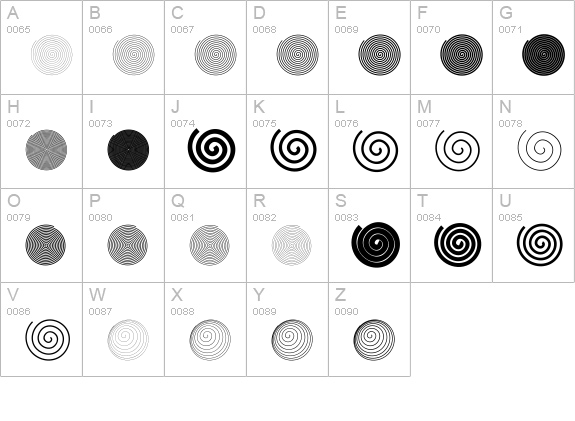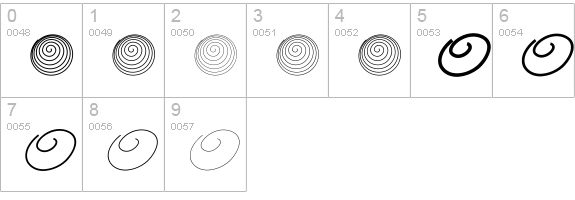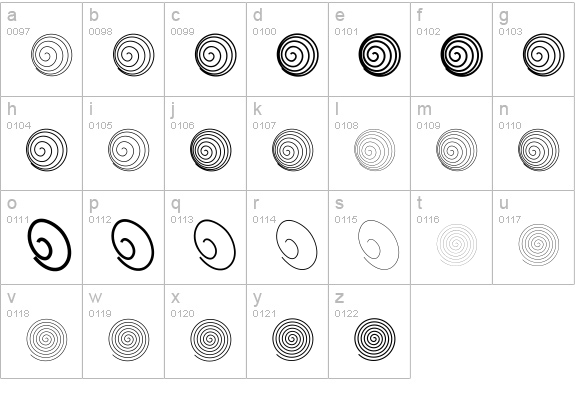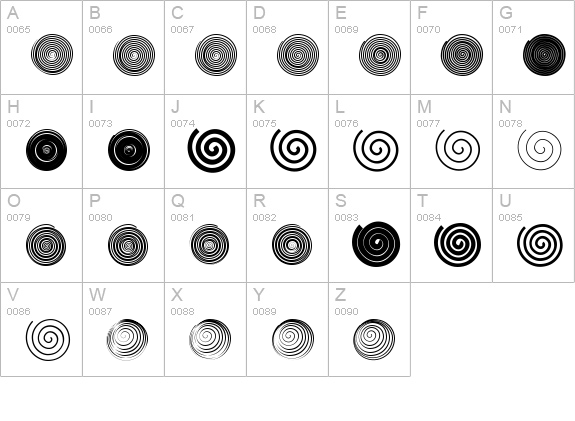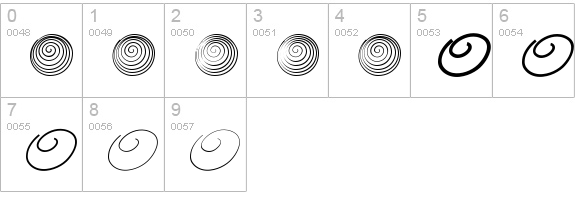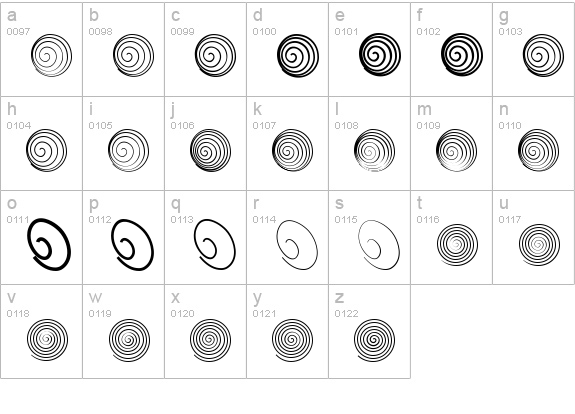
Spiralicus Font Details
Spiralicus is a captivating and versatile font that will add a touch of artistic flair to any project. With its unique spiral-like design, this font effortlessly combines elegance and creativity, making it perfect for everything from logos and branding to invitations and social media graphics. One of the best things about Spiralicus is that it is completely free to download at FontsMarket.com. This means that you can unleash your creativity without any financial constraints. Whether you are a professional designer or a creative enthusiast, this font provides you with endless possibilities to express your ideas and bring them to life. The intricate details of Spiralicus make it a truly eye-catching font. Each letter is delicately crafted with precision, ensuring that every word you create becomes a visual masterpiece. The graceful curves and striking symbols make it a font that stands out from the crowd, leaving a lasting impression on anyone who sees it. Another great feature of Spiralicus is its versatility. This font is suitable for a wide range of projects and themes. Whether you want to give your website a modern and stylish look, create stunning packaging for your products, or design beautiful wedding invitations, Spiralicus will always be the perfect choice. Moreover, Spiralicus is incredibly easy to use. Its user-friendly nature means that you don't need to be a professional designer to utilize its full potential. With just a few clicks, you can transform your ideas into visually stunning creations that will captivate your audience. So why wait? Download Spiralicus for free at FontsMarket.com and let your imagination run wild. Unleash the power of this extraordinary font and take your designs to new heights. Whether you are a seasoned designer or just starting out, Spiralicus is here to inspire you and help you create something truly remarkable. Don't miss out on this incredible opportunity to elevate your projects with the stunning beauty of Spiralicus.